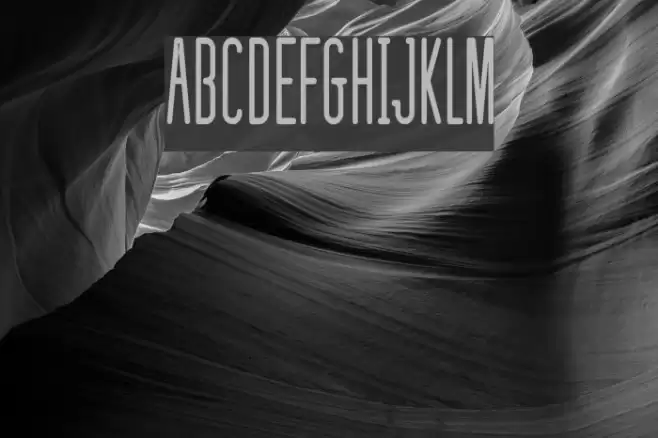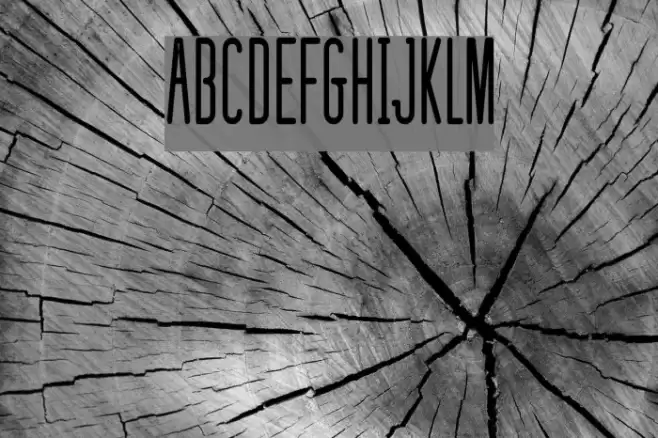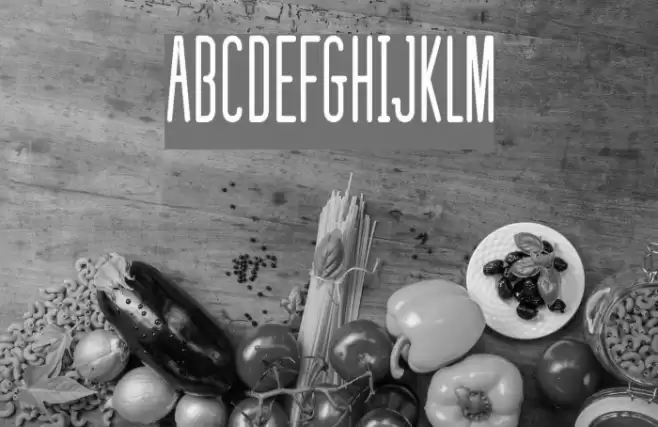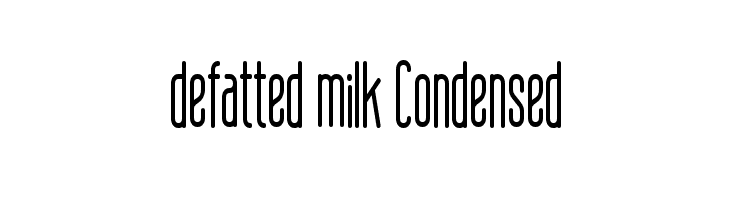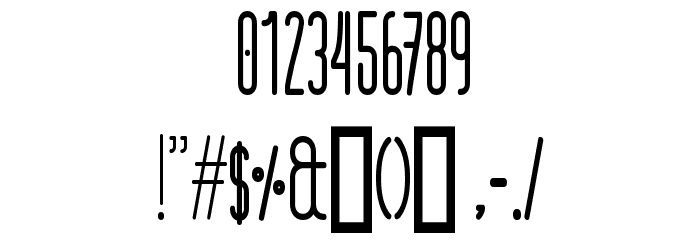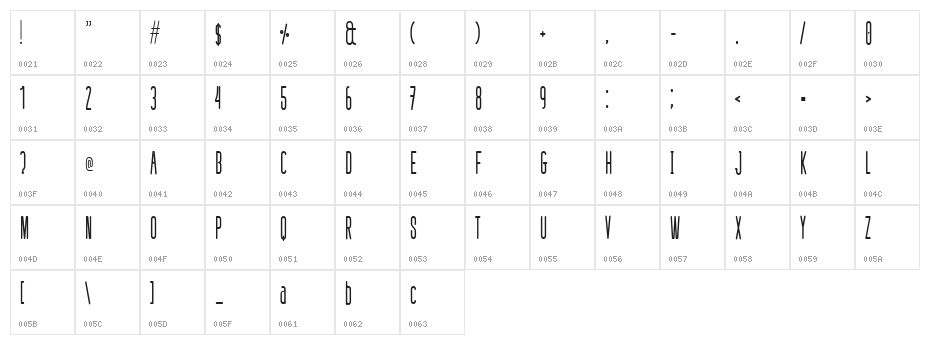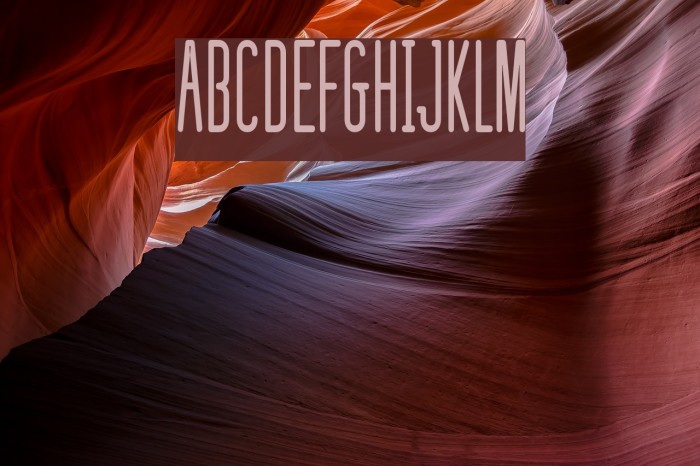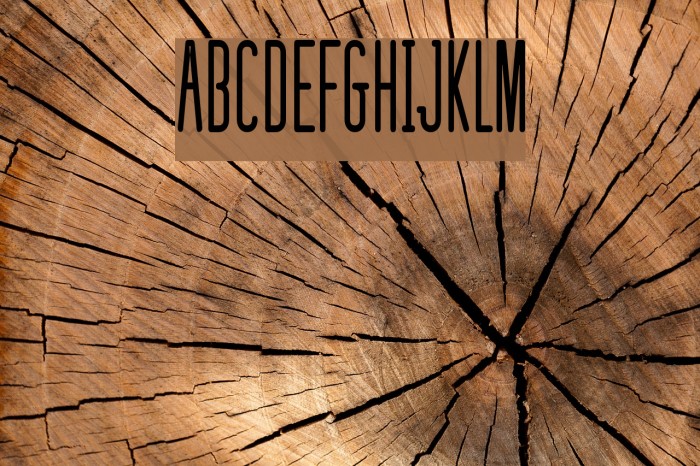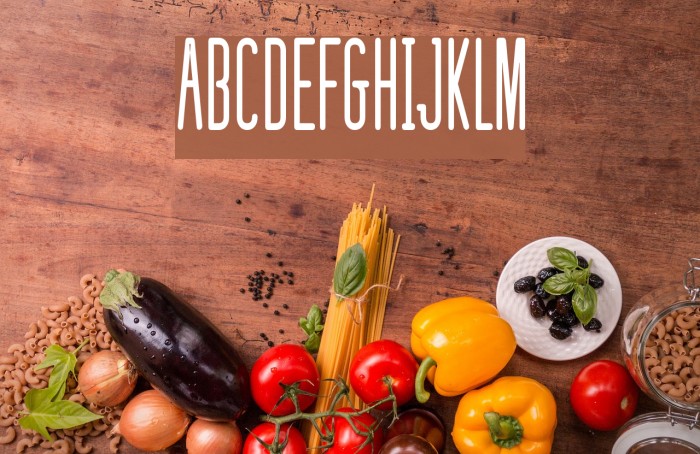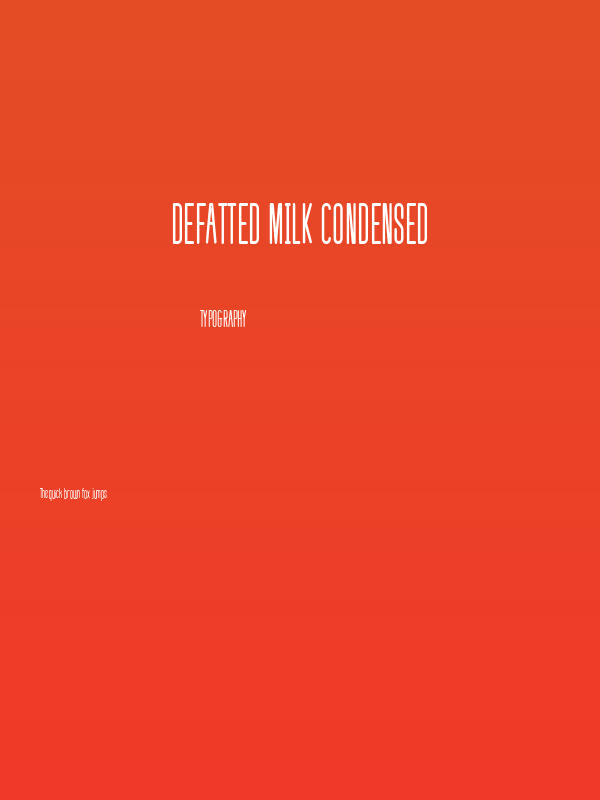
defatted milk Condensed Font
defatted milk Condensed Description
This font features a condensed and elongated style, characterized by tall, narrow letters that create a sleek and modern appearance. The uppercase and lowercase letters maintain a consistent height, contributing to a uniform and orderly look. The numerals are similarly narrow, complementing the overall design. Special characters are included, maintaining the same condensed style, which ensures versatility across various applications. The font's clean lines and minimalistic approach make it suitable for contemporary design projects.
A sleek, condensed font with tall, narrow letters and a modern aesthetic from Uncategorized fonts.
- Proposed Projects: Ideal for branding, posters, headlines, and any project requiring a modern, streamlined look.
- Character Spacing: Tight